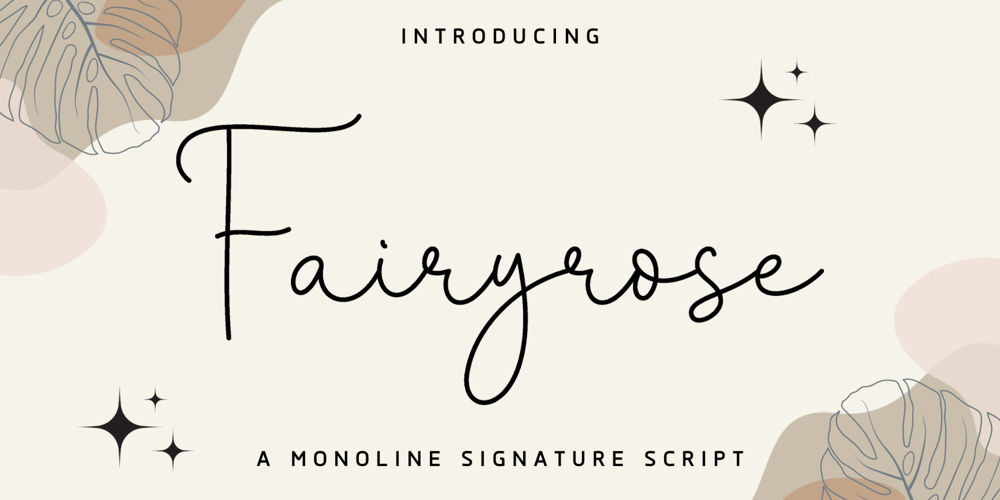
Fairyrose Font Family was designed by Ian Mikraz and published by IanMikraz Studio. Fairyrose contains 1 styles and family package options. Fairyrose, a Monoline Signature Script Typeface, is the epitome of grace and elegance in typography. Every character in Fairyrose is a testament to the art of simplicity, delivering a touch of timeless beauty to your designs. Whether it’s wedding invitations, logo branding, or delicate packaging, Fairyrose infuses an air of sophistication that leaves a lasting impression.Fairyrose’s monoline design offers a unique blend of modern simplicity and traditional elegance. Its flowing, signature-style script effortlessly adapts to a wide array of design projects. The soft, graceful curves of Fairyrose create a sense of delicacy, making it an ideal choice for romantic and refined aesthetics. Elevate your designs with the magic of Fairyrose and let your creativity flourish.